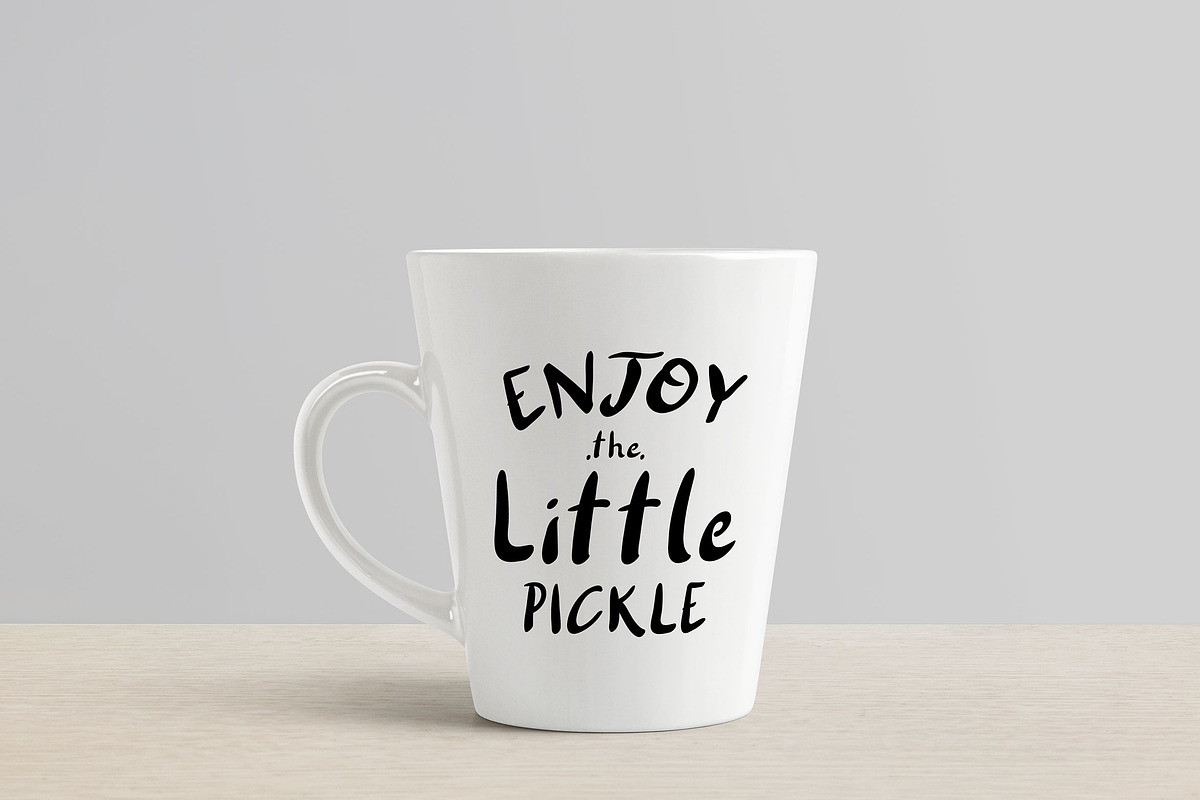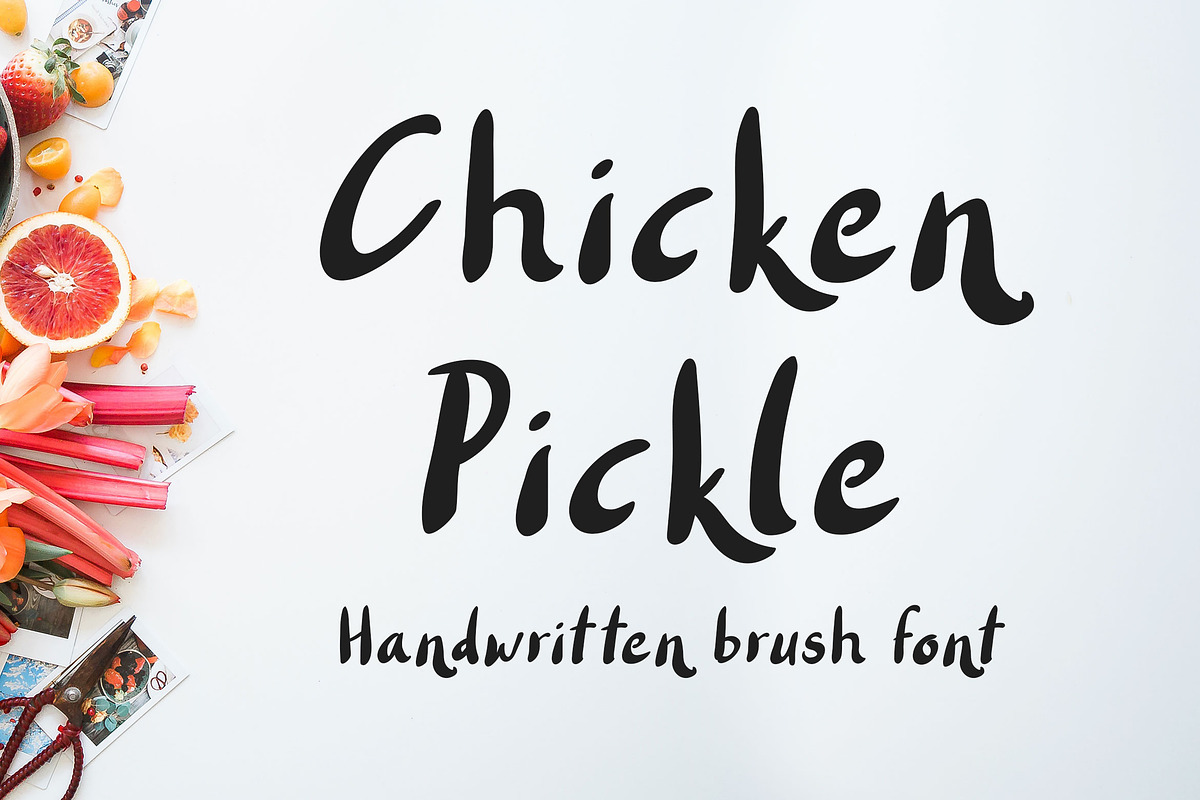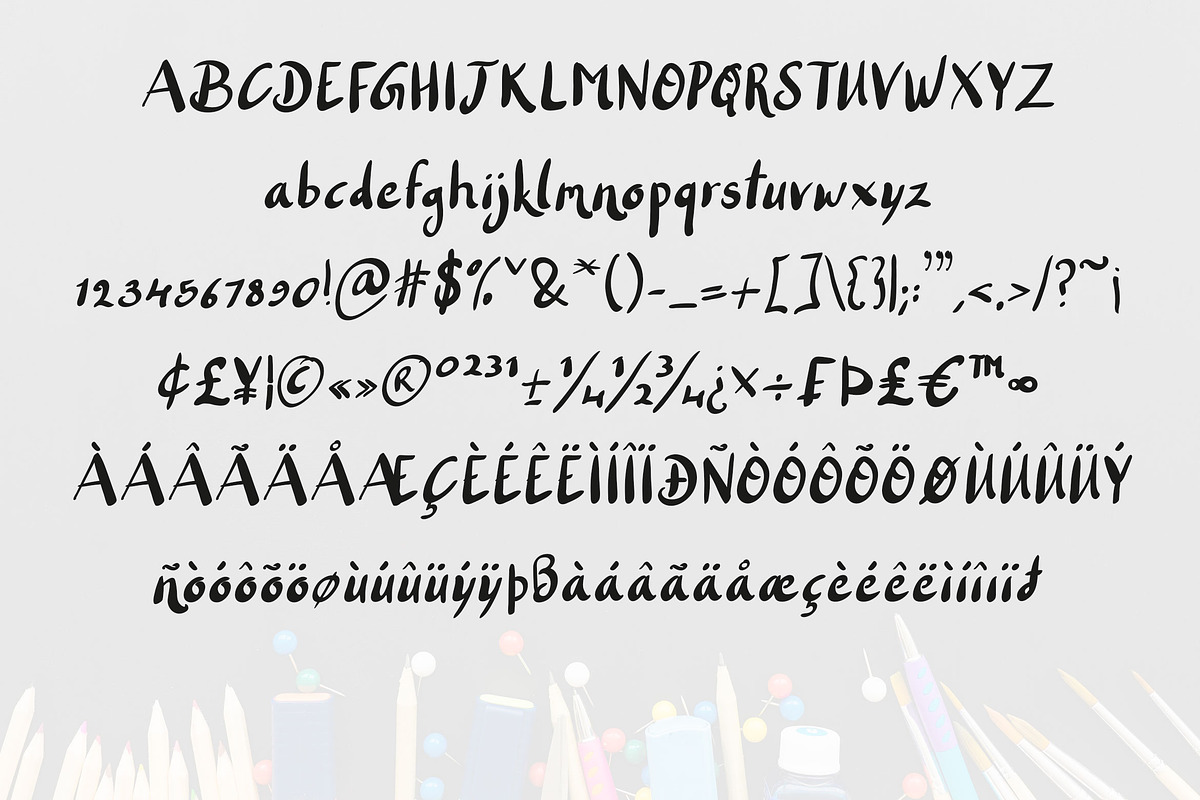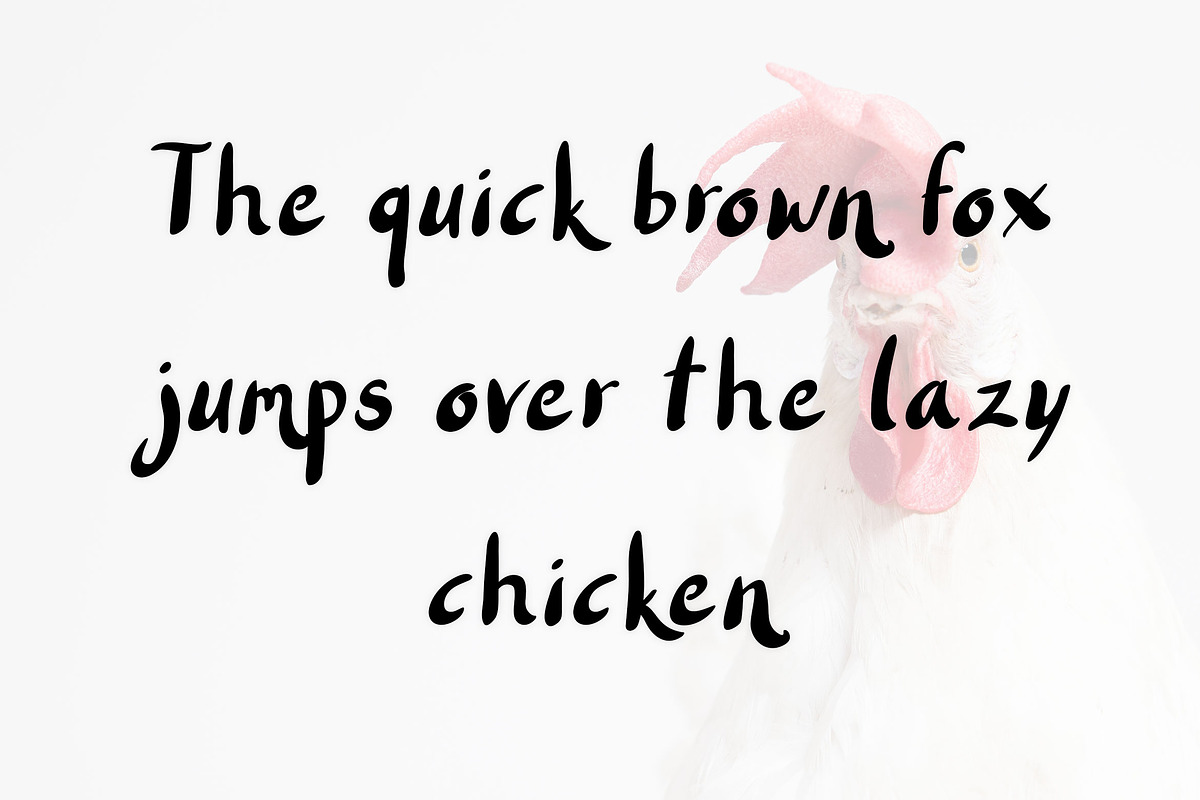
Chicken Pickle - Brush Font
Chicken Pickle is new playfull handwritten brush font.
Bold and smooth quirky brush style perfectly fits for Hand lettering Projects, Invitations, Kids Projects, video titles and much more.
Punctuation's/Symbols and
Multilingual Support.
- Included Uppercase, Lowercase, Numbers, Punctuation's/Symbols and Multilingual Support.
Chicken Pickle - Brush Font by Dasagani fits naturally into Branding, posters, packaging, typography.